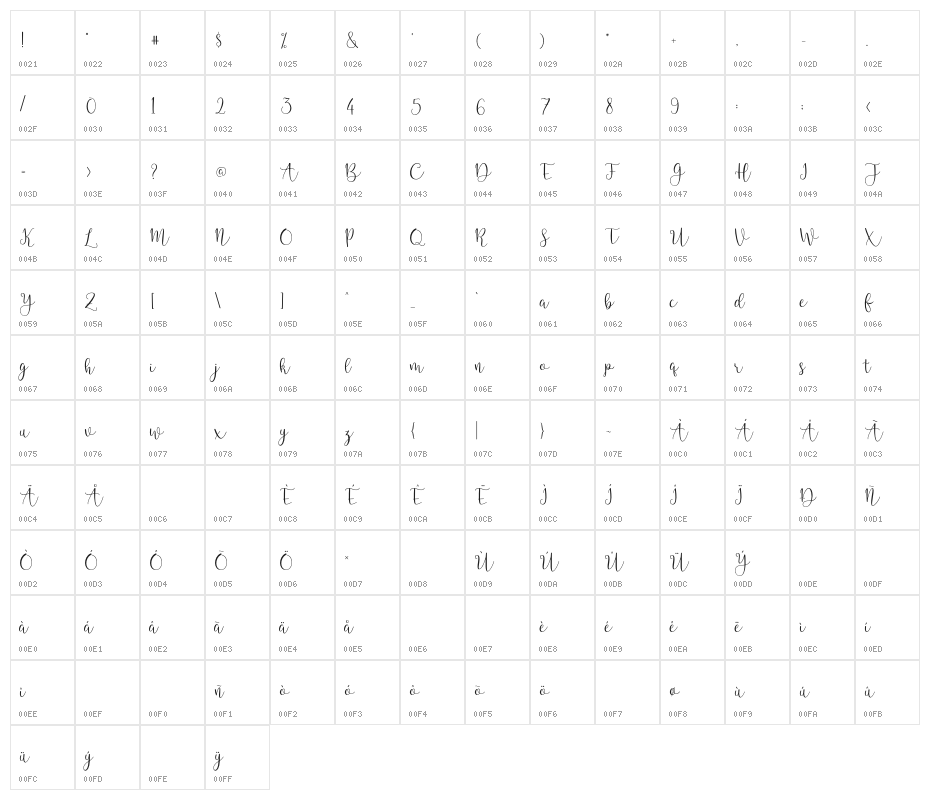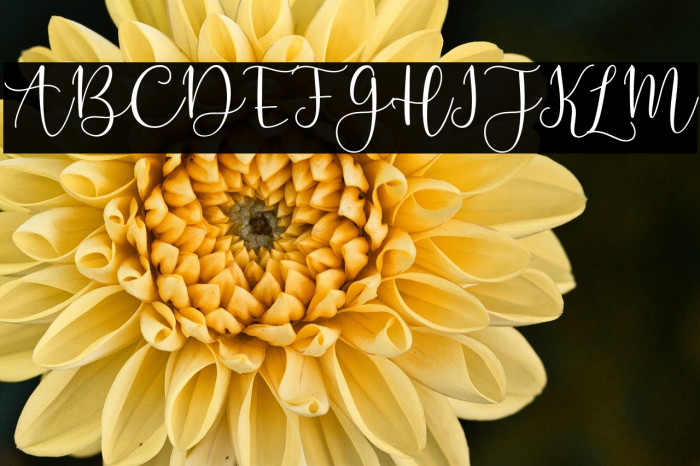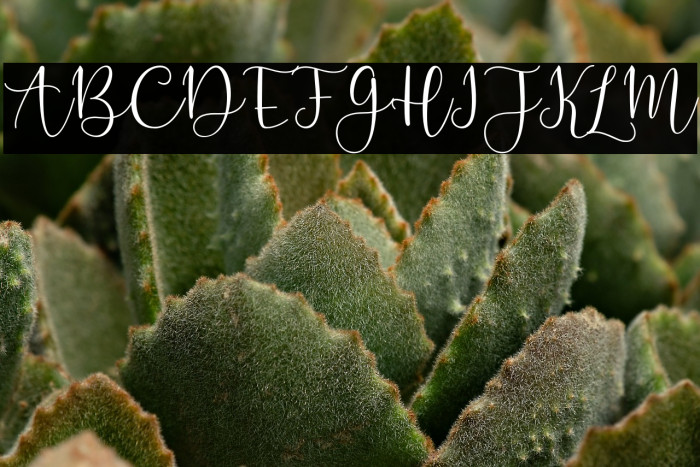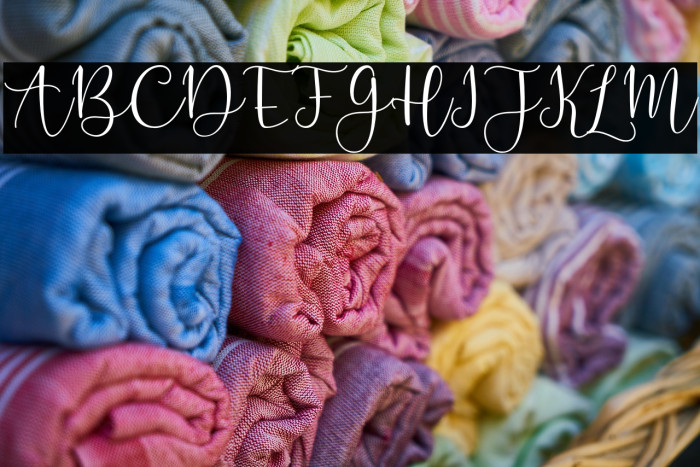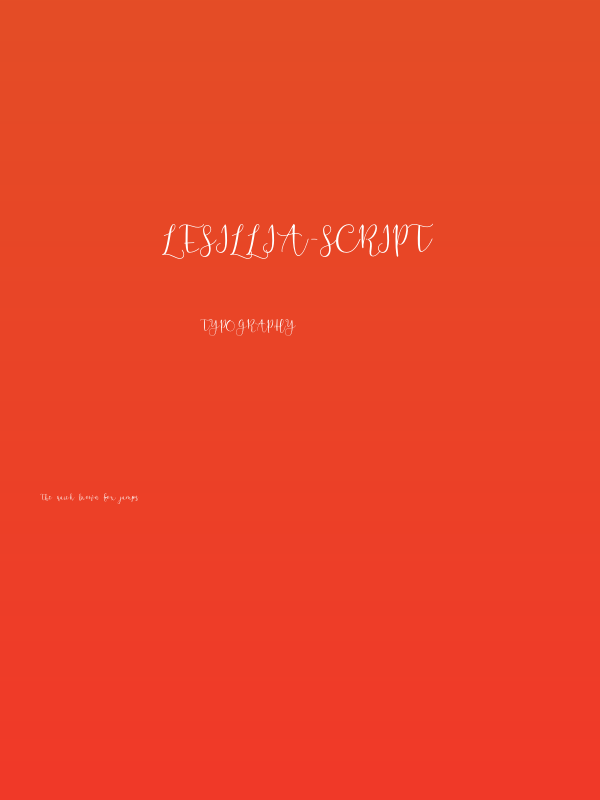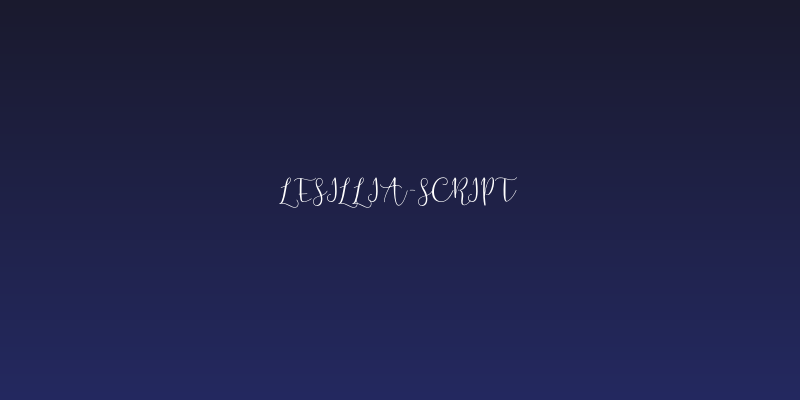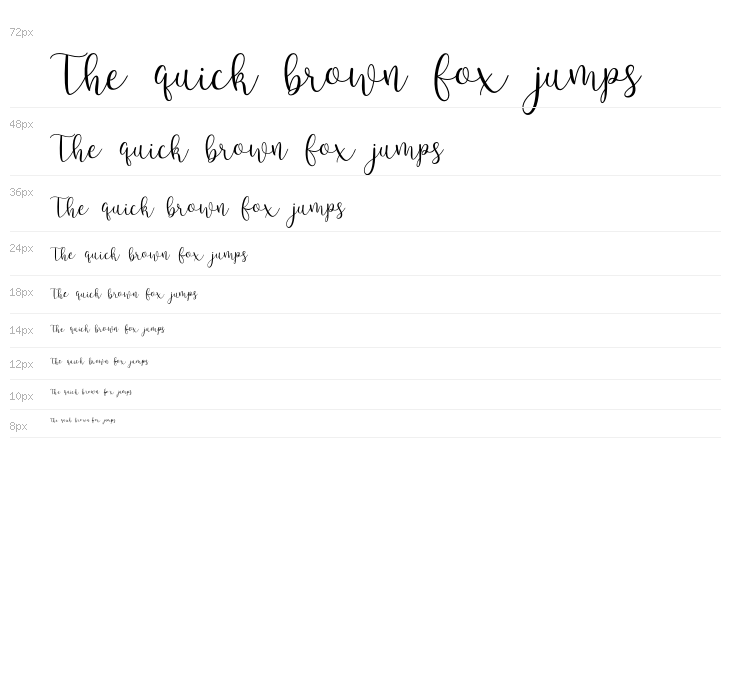
Lesillia-Script Font
Lesillia-Script Description
This elegant script font features flowing, cursive letters with a graceful and sophisticated appearance. The uppercase letters are characterized by their sweeping curves and loops, giving them a sense of movement and fluidity. The lowercase letters maintain a consistent style, with smooth connections between each character, enhancing the script's readability. The numerals are designed to complement the overall aesthetic, with a slight slant and delicate curves. Special characters are seamlessly integrated, maintaining the font's cohesive look. This font exudes a sense of elegance and charm, making it ideal for formal invitations, branding, and decorative purposes.
| Overall Style | Elegant |
| Use Case | Headlines, Invitations, Branding |
| Proposed Projects | Ideal for wedding invitations, elegant branding, greeting cards, and decorative signage. |